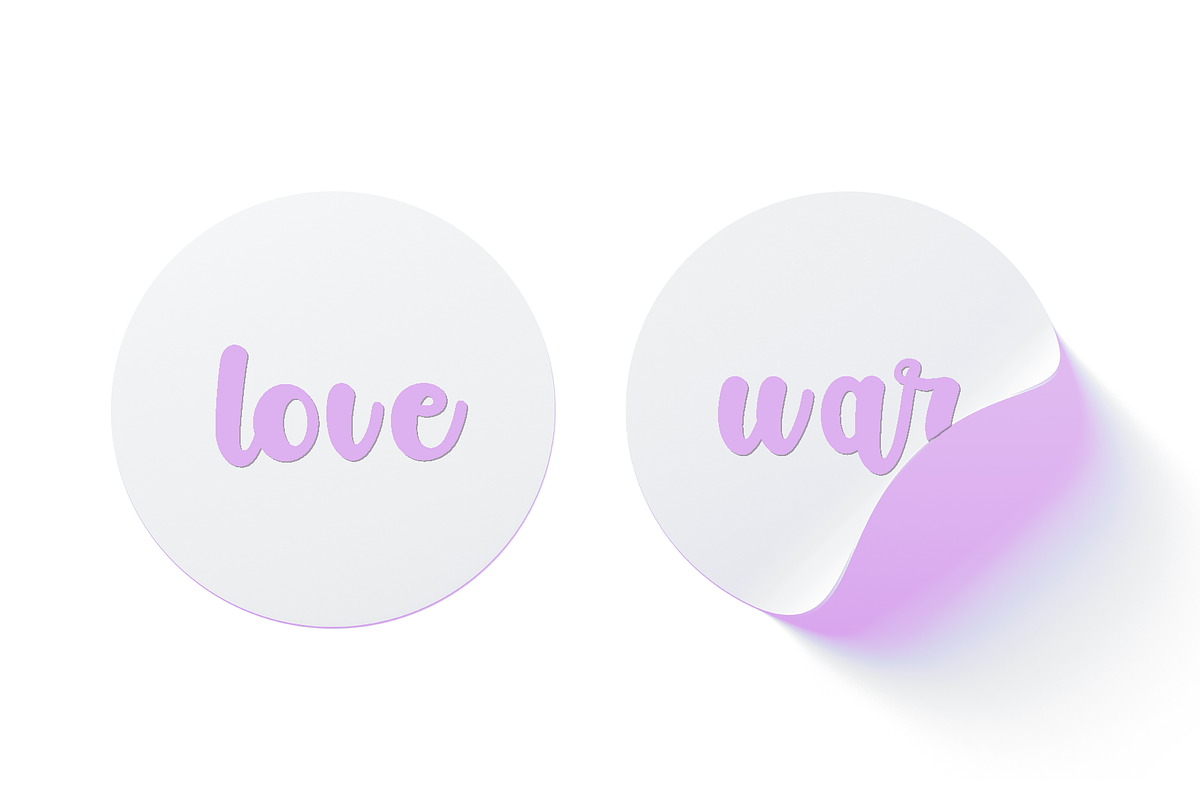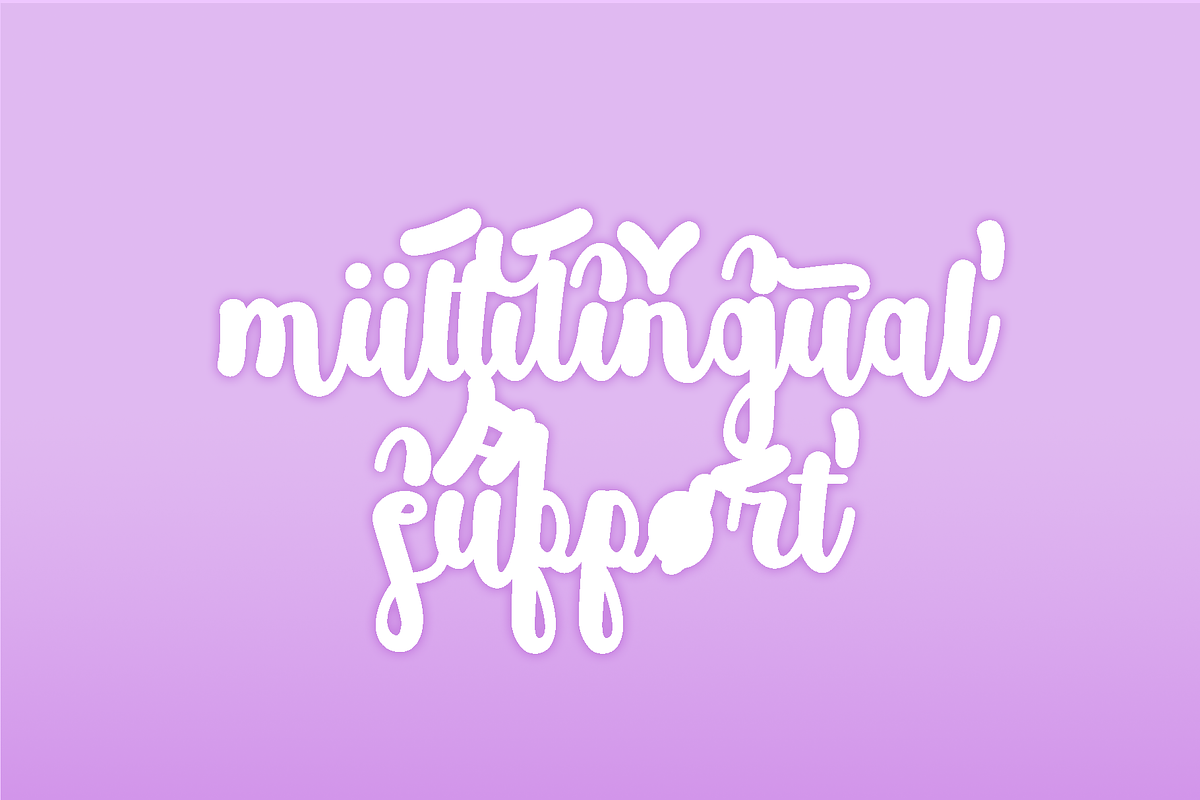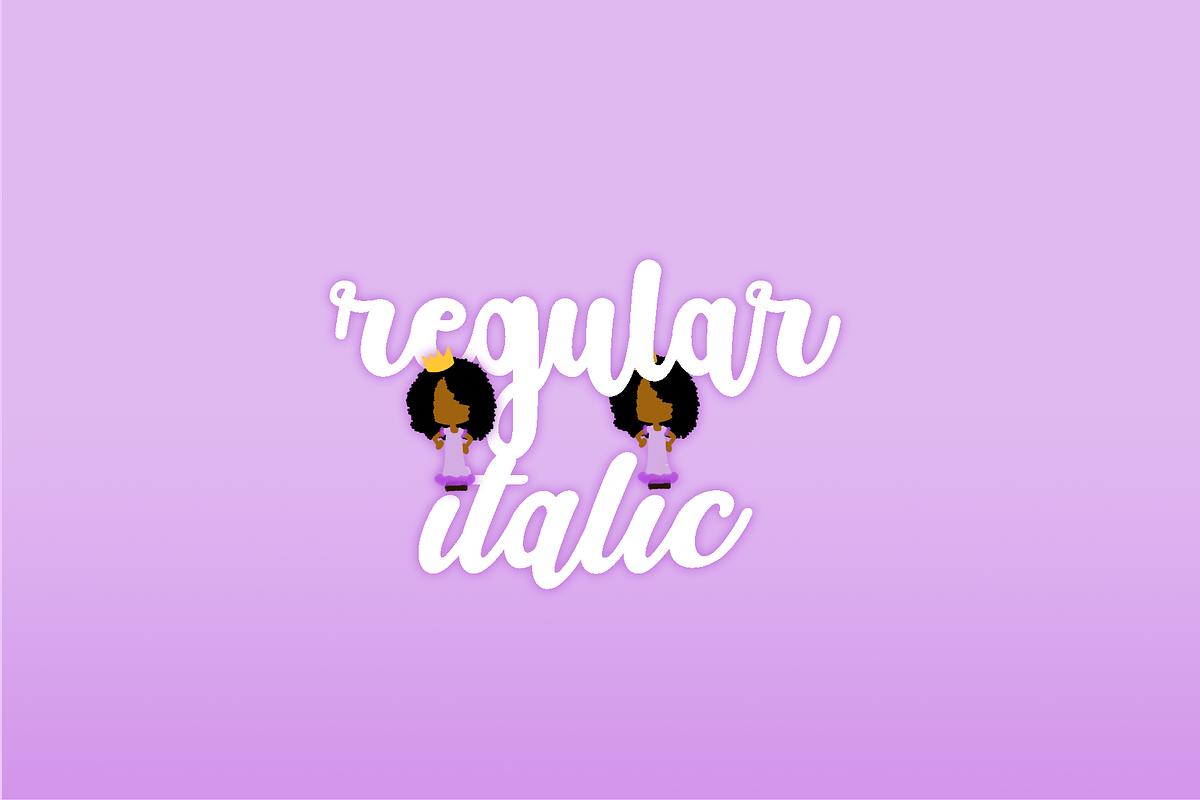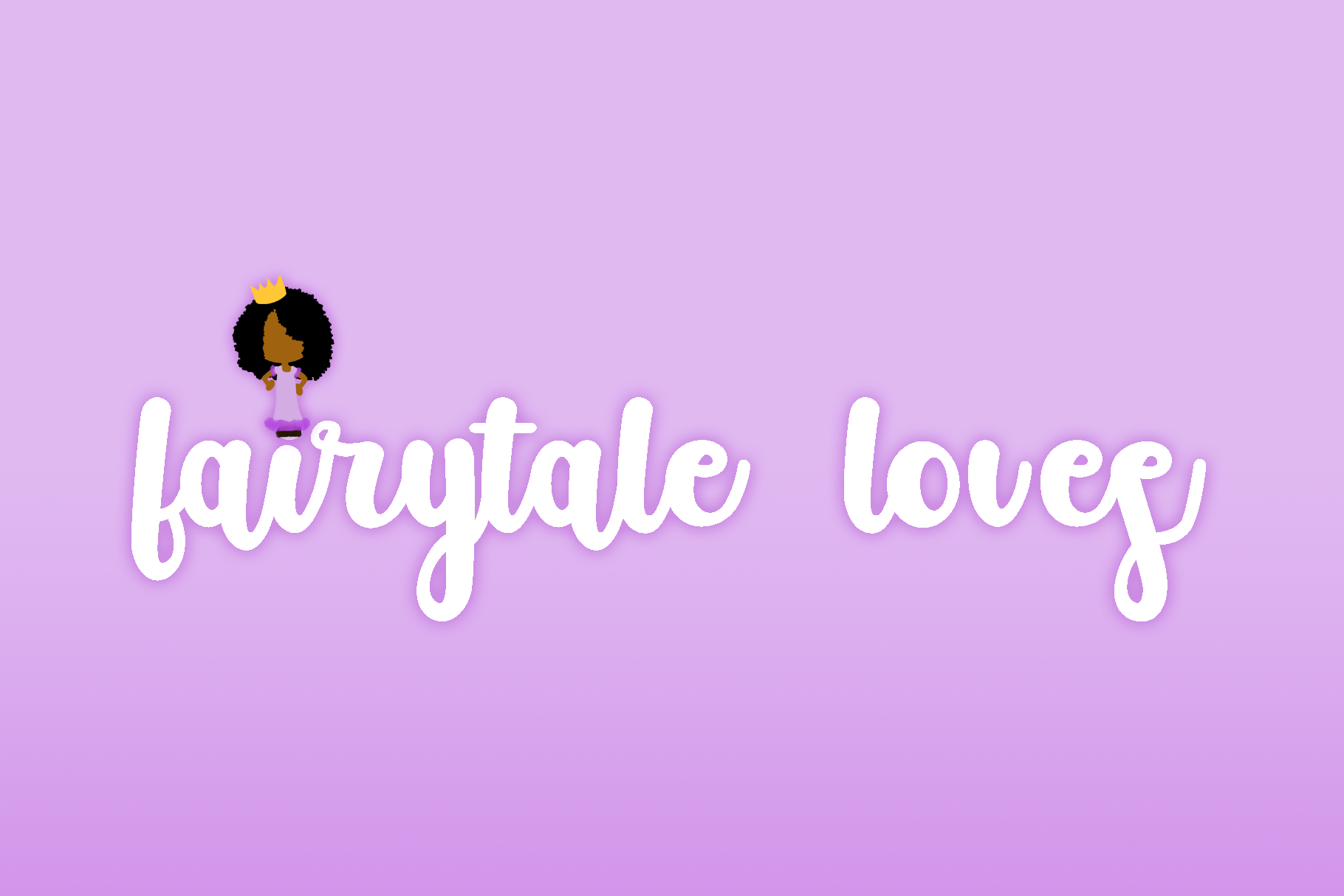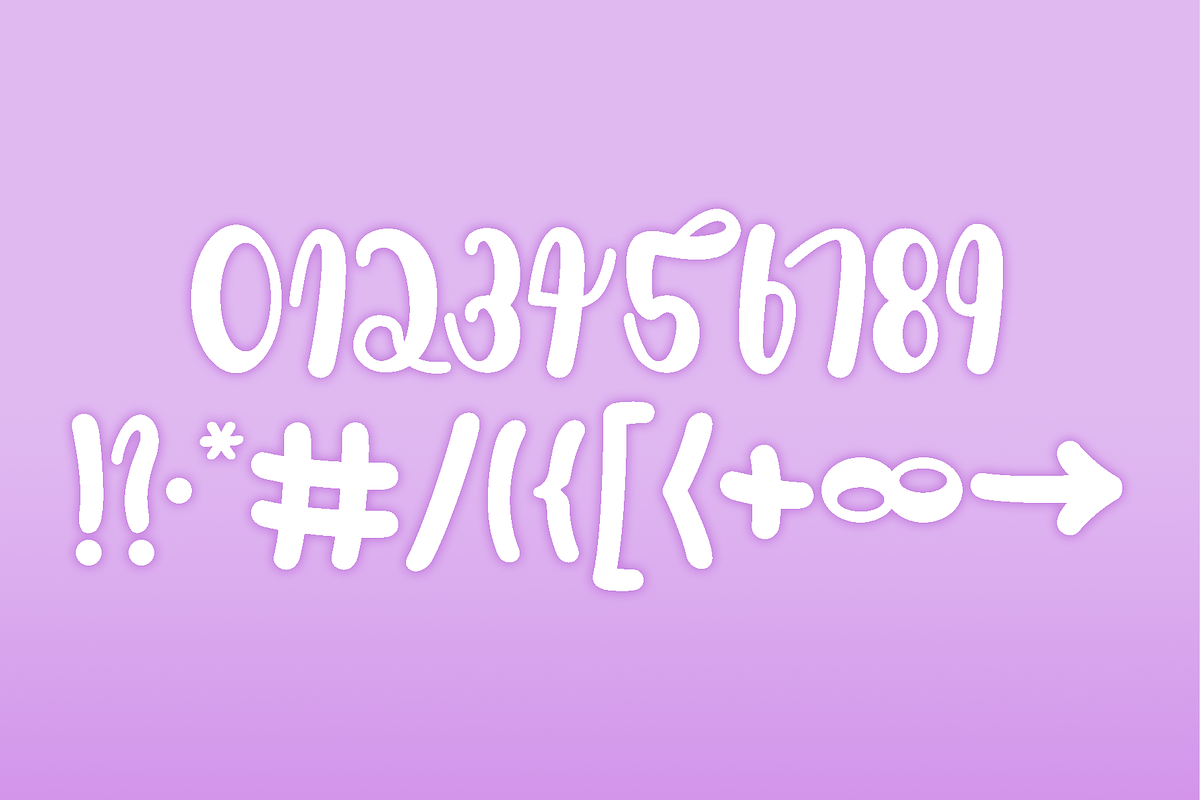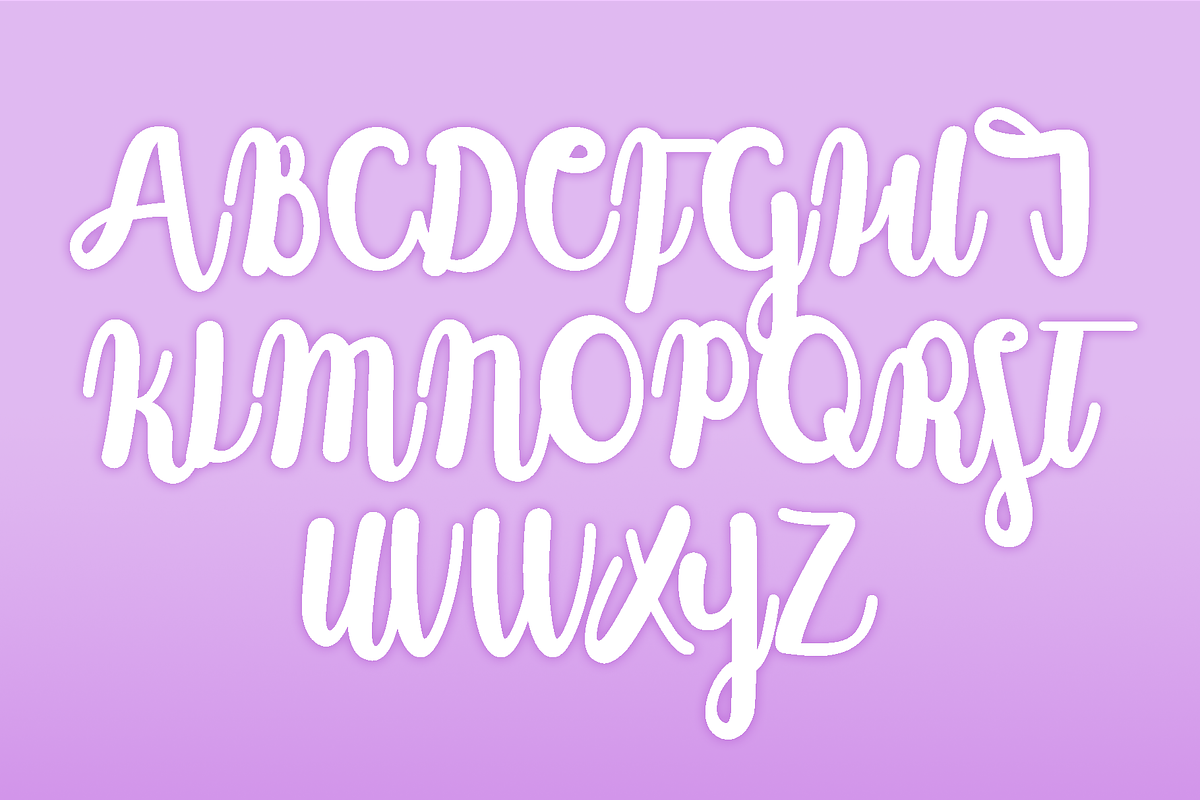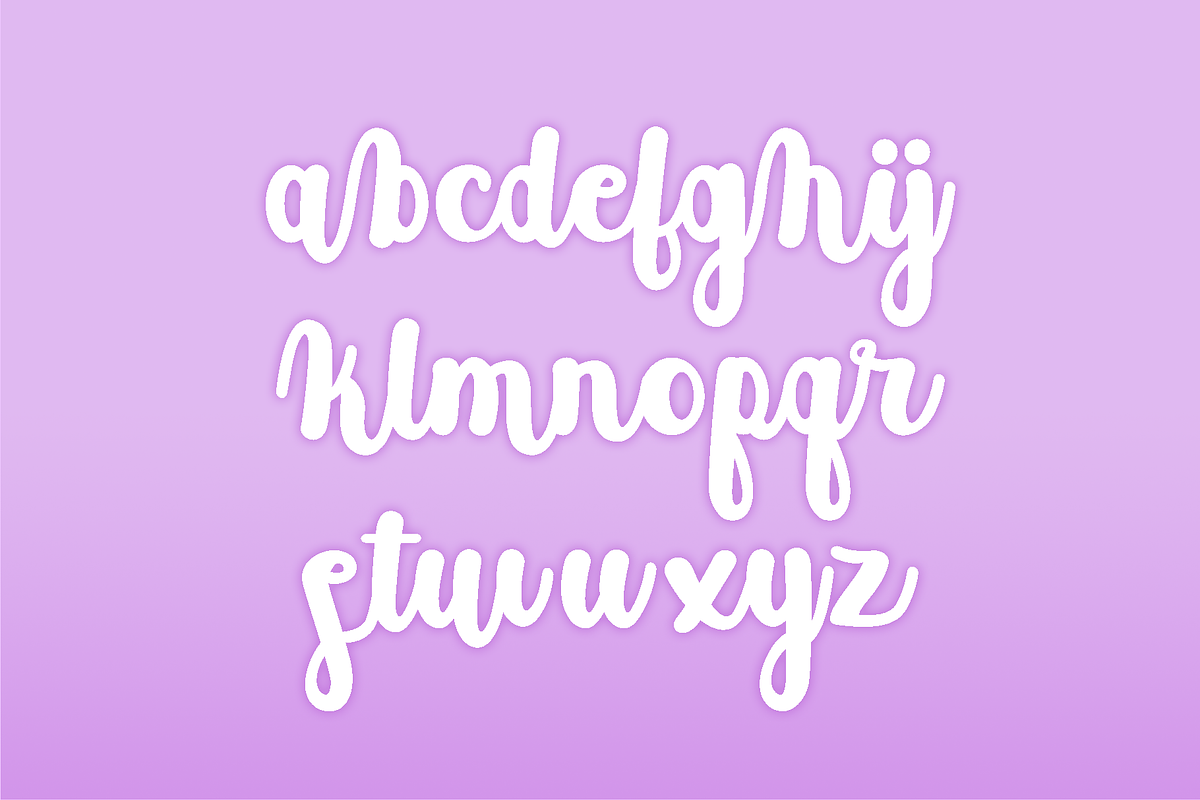
Fairytale Loves Script Font
Fairytale Loves is a perfect script font for any of your lovely, loopy needs. It has thick, bubble characters that connect perfectly and cohesively. Great for use on any handwritten or calligraphic project.
- Fairytale Loves Regular
- Fairytale Loves Italic
It has 440 glyphs, supporting a variety of languages!